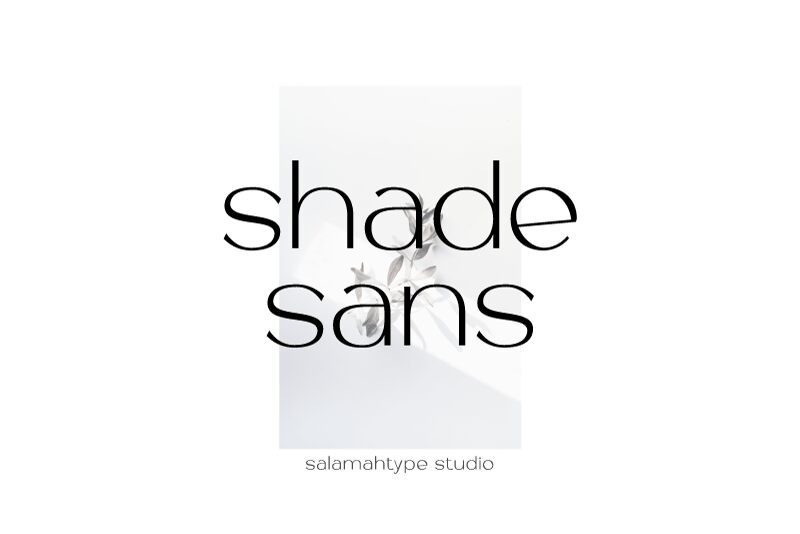
Shade Sans font, designed by Salamahtype - Aswangga, is a free minimalist sans serif font. This versatile and simple typeface is contemporary and understated with geometric influences. It is clean and well-balanced, making it perfect for various design projects. Inspired by the modernist graphic designer Otl Aicher, this font conveys modernity and subtlety.
Shade Sans is ideal for designing minimalist posters, clean website UI, packaging design, printed and digital branding, as well as ensuring appealing legibility when used for mobile app interfaces, video games, or printed forms. With this font, you can easily create the aesthetic you want.